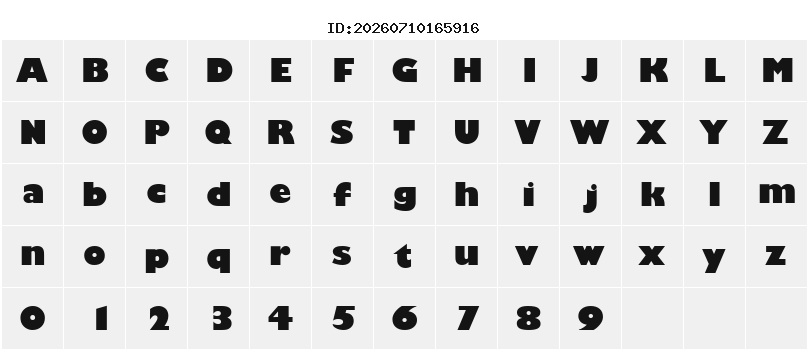
Gentle Sans Ultra Bold Preview
• Font Name: Gentle Sans Ultra Bold
• Full Font Name: Gentle Sans Ultra Bold Regular
About Gentle Sans Ultra Bold.ttf
Gentle Sans Ultra Bold.ttf is a modern, elegant sans-serif font designed for ultimate readability and visual harmony. Perfect for branding, headlines, web design, and print materials.